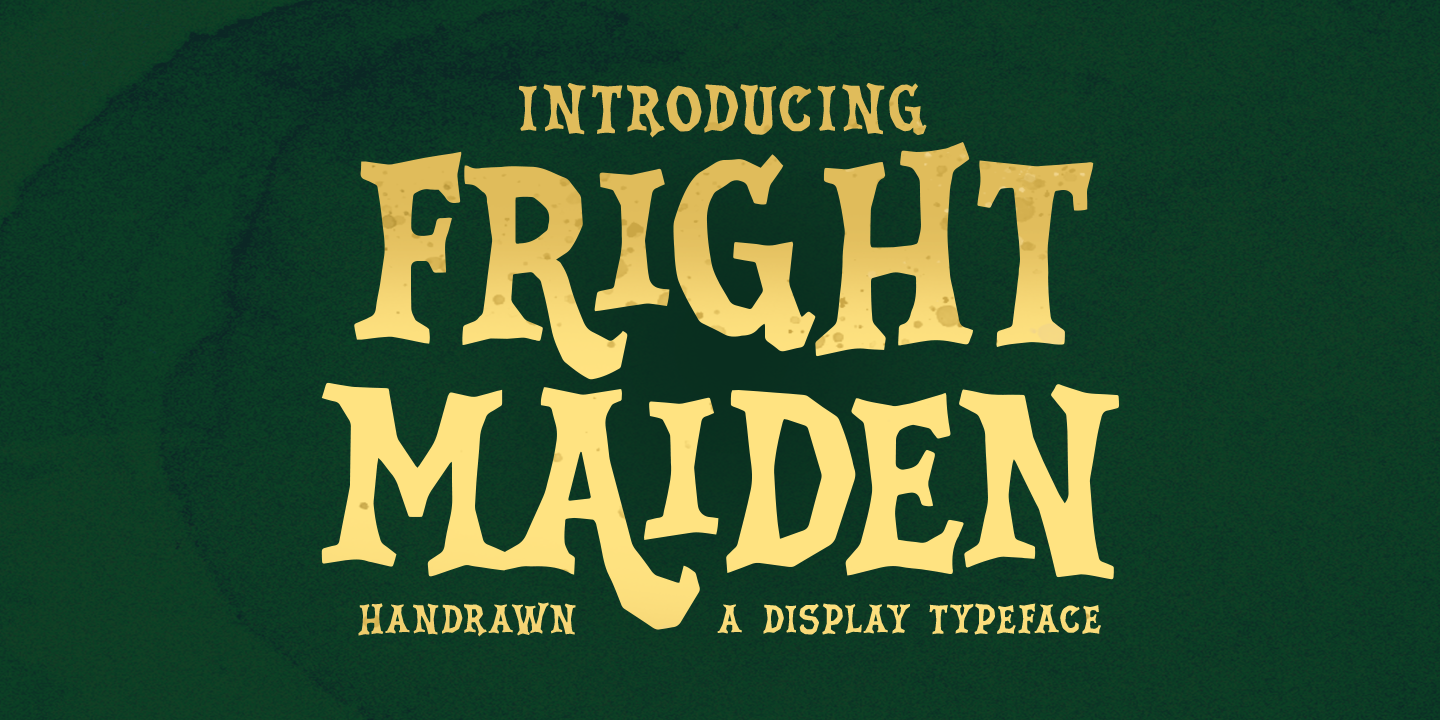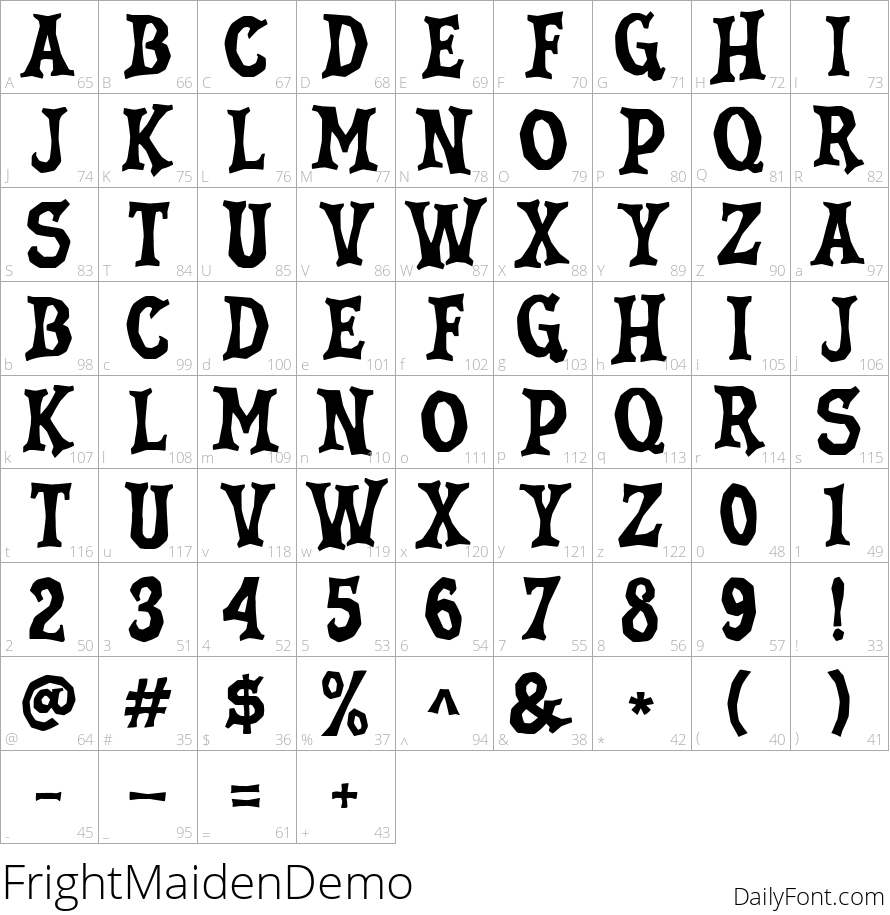
Fright Maiden
Introducing Fright Maiden, a striking serif typeface designed to evoke the chilling essence of horror. With its bold, unique shapes, this font is perfect for designs that aim to thrill and captivate an audience. Whether you're creating eerie book covers, spooky invitations, or chilling advertisements, Fright Maiden delivers an unmistakable vibe that resonates with fans of the genre.
Crafted to accommodate a variety of design needs, this versatile font features alternate characters and ligatures that enhance its aesthetic appeal. You'll also find a full set of numbers and punctuation marks, making it ideal for both formal and creative applications. Plus, it supports multiple languages, widening its usability across different cultures. PUA encoding ensures that designers can easily access its creative options, giving you the tools you need to make your projects stand out. Embrace the spooky season or any eerie concept with Fright Maiden, where each letter tells a haunting story.